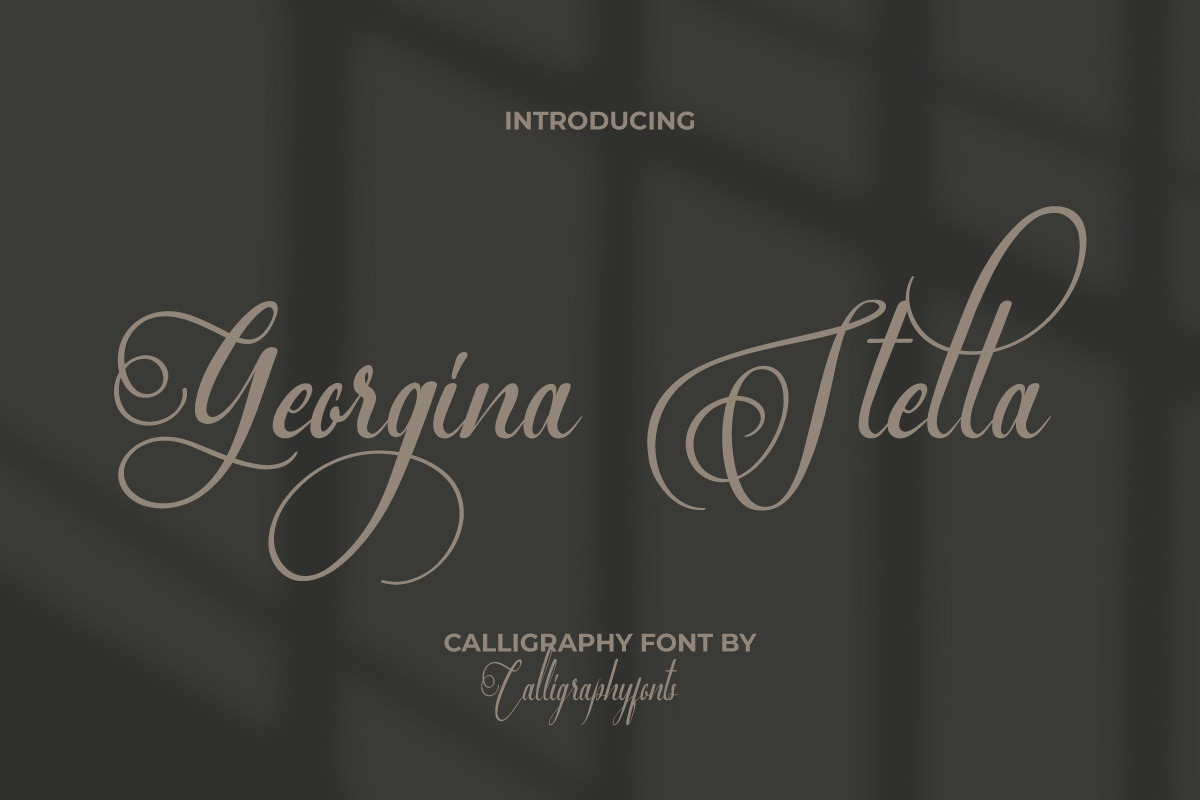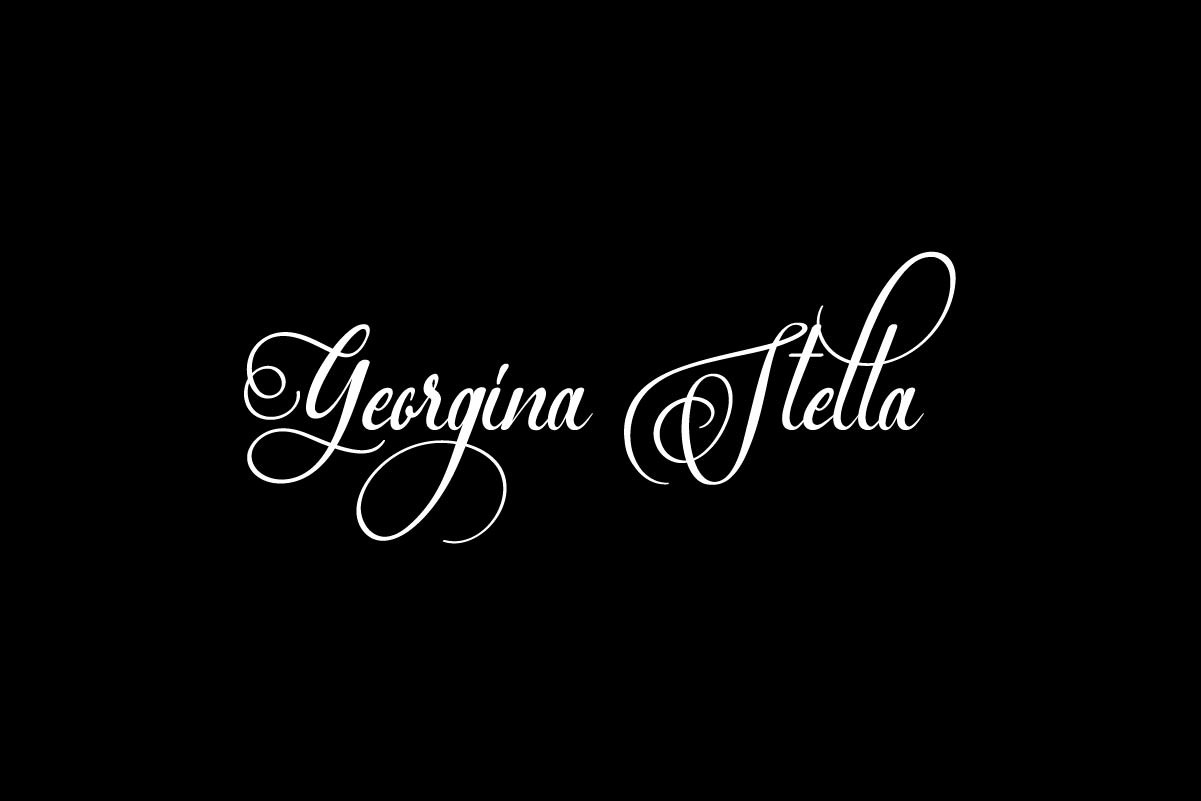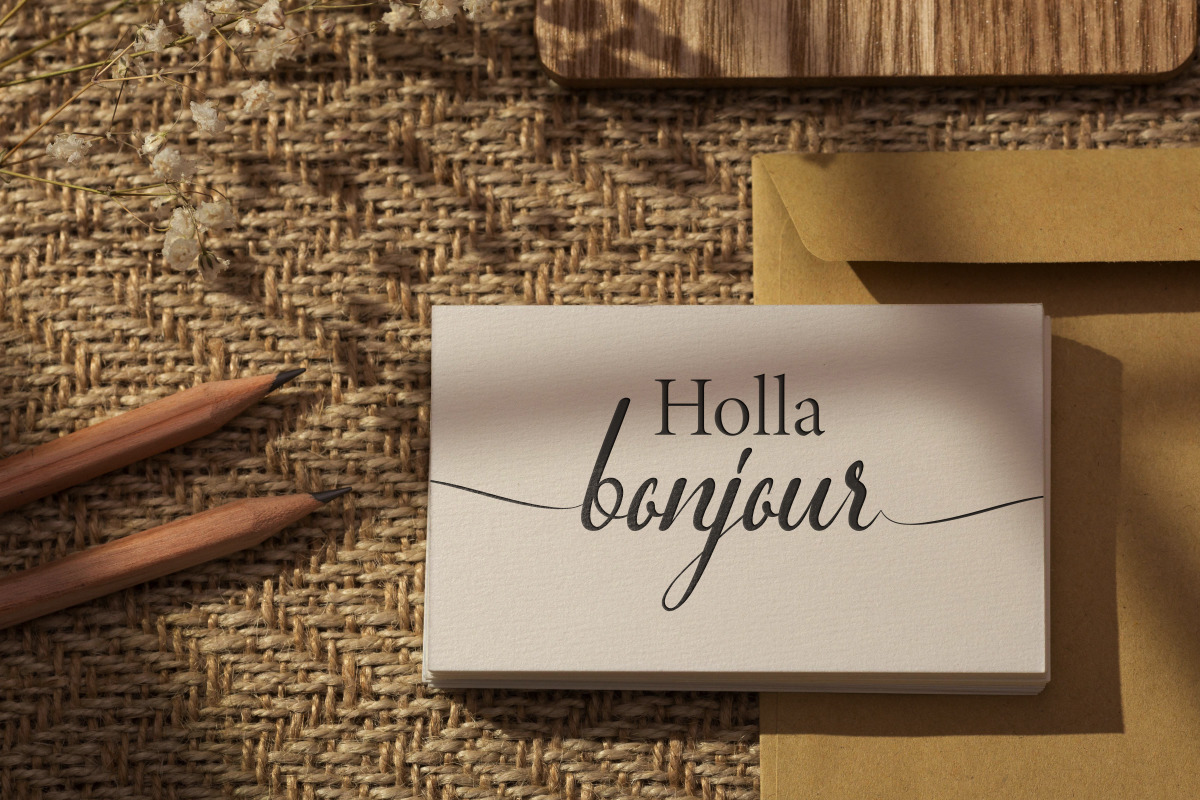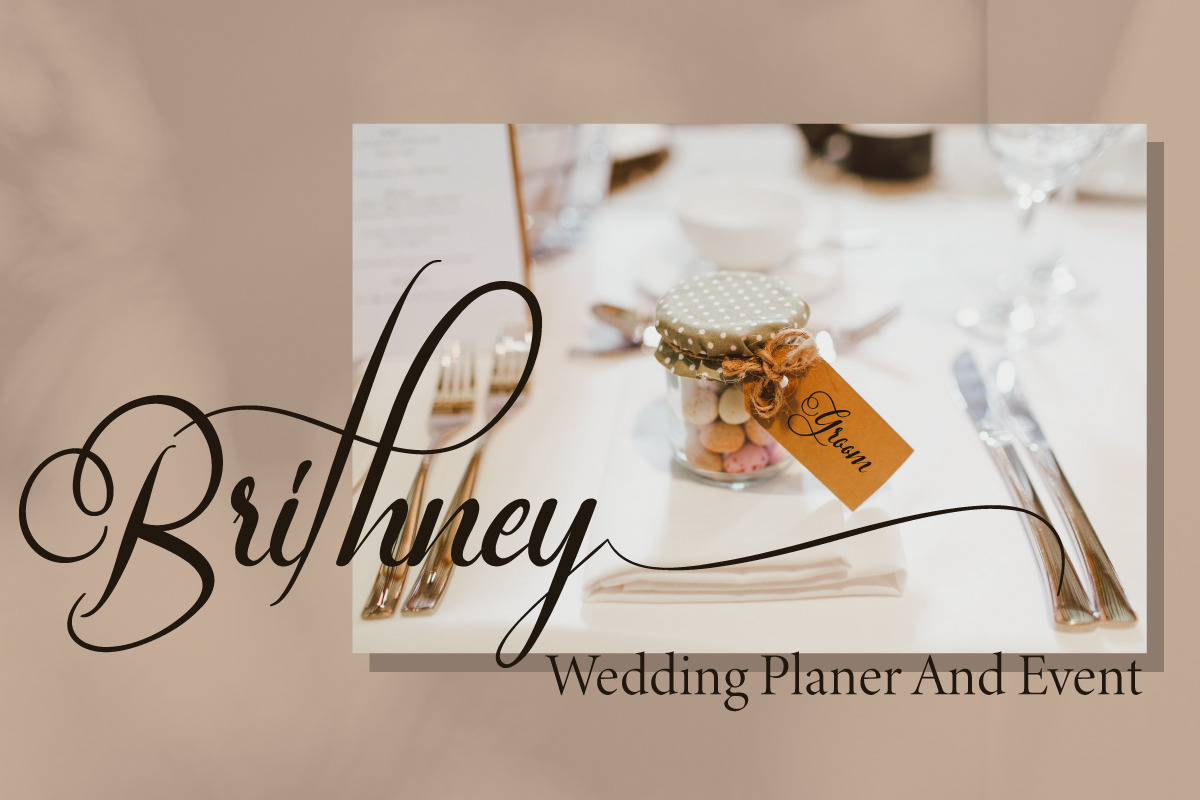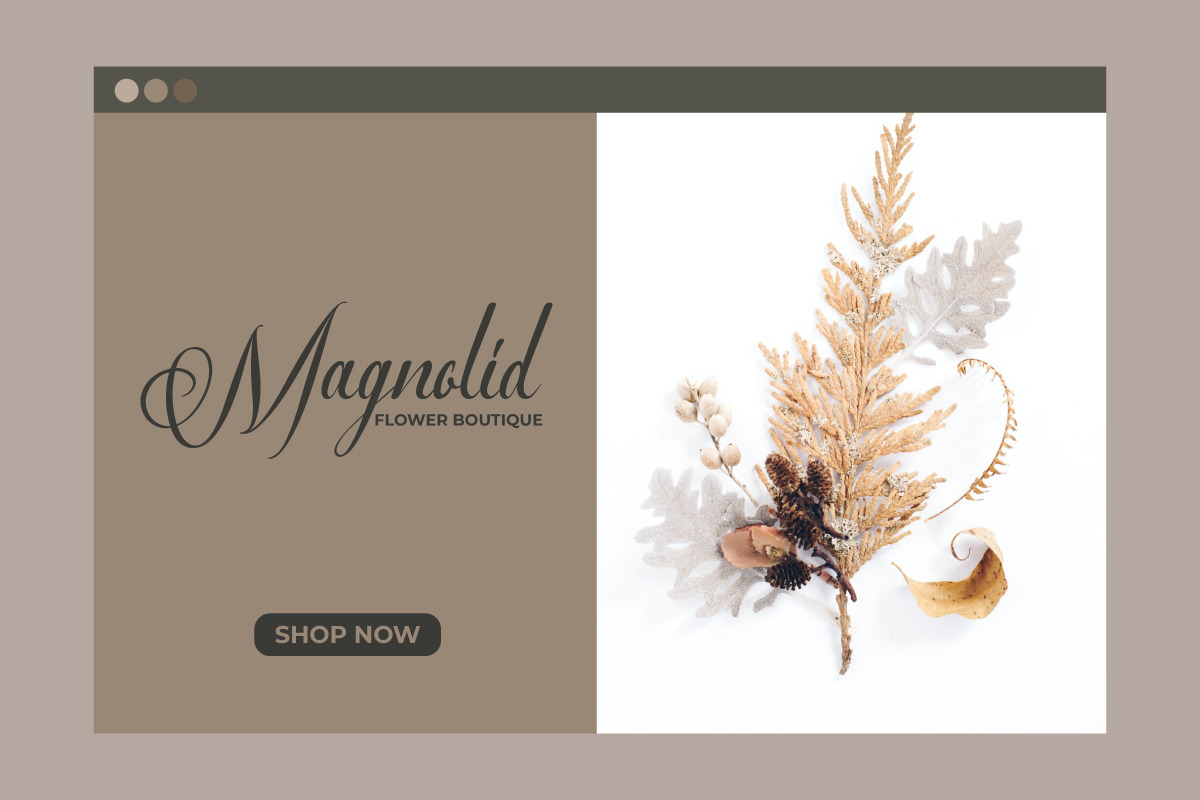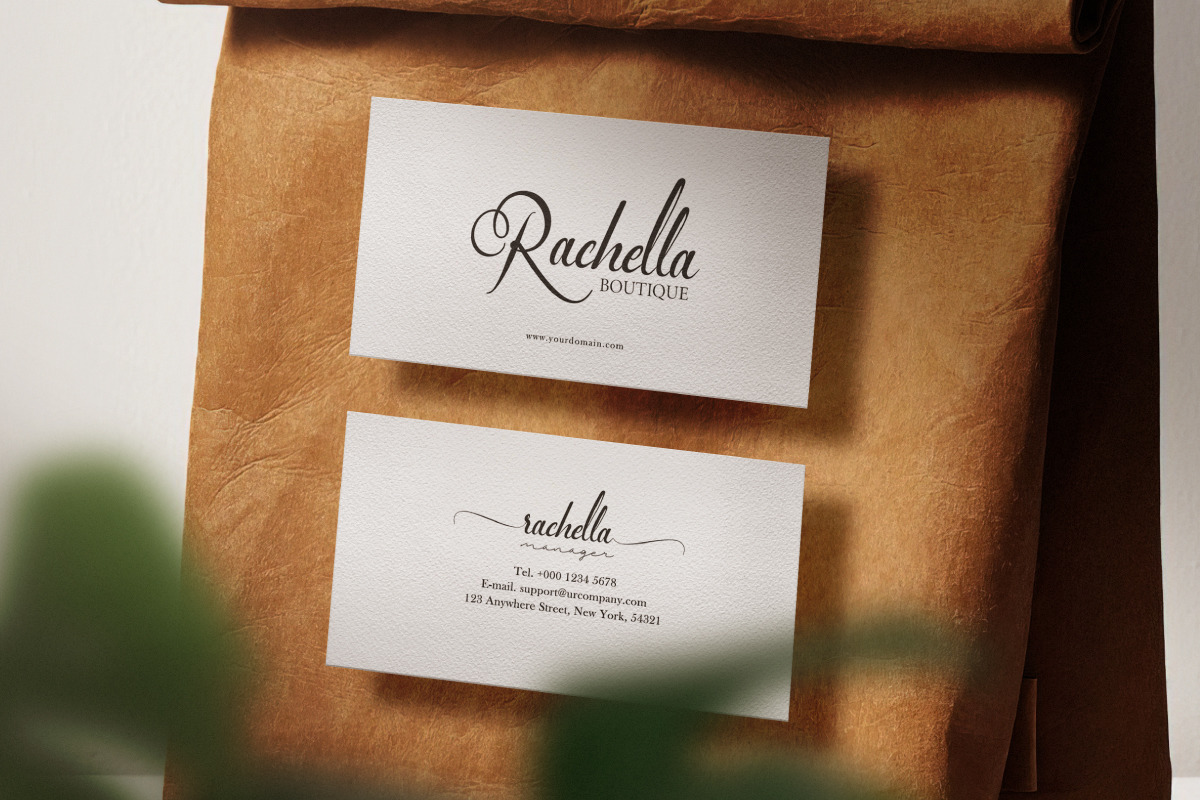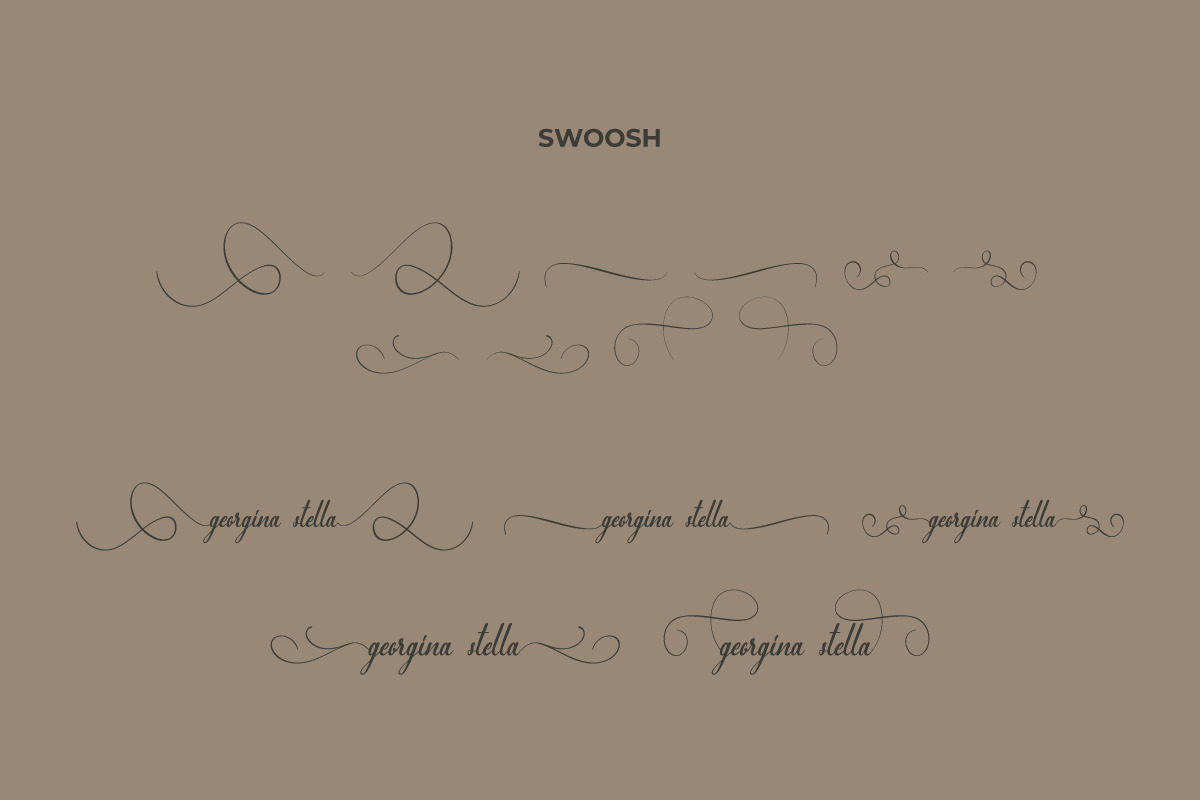
Georgina Stella Calligraphic Font
Georgina Stella Font is a stunning handwriting calligraphy font. It has unique looks that are elegant, luxurious, lettering and sophisticated Calligraphy font. Almost all industries will be match for this typeface: wedding, events, real estate, architect, law firm, florist, gardening, makeup artist, travel, hotel, musician etc